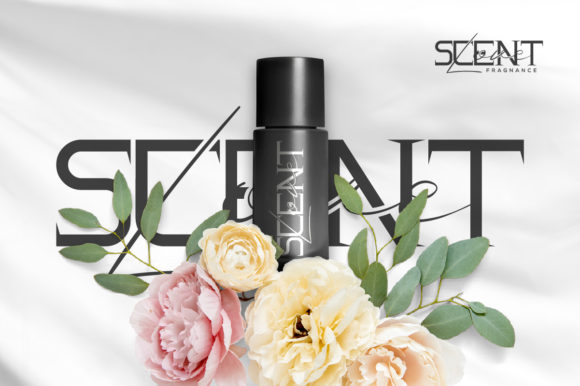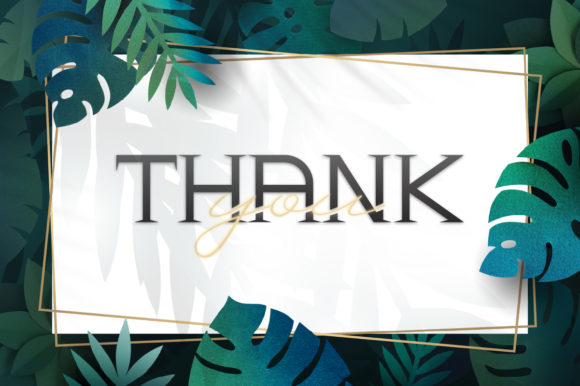
About Rustte Font
Rustte is truly an extraordinary duo font, combining both a script and serif typeface. This unique combination allows you to create stunning designs that seamlessly blend formal and informal elements. Whether you’re working on wedding invitations, thank you cards, quotes, greeting cards, logos, or business cards, Rustte is the perfect choice for adding a personalized touch.
The script font in Rustte adds elegance and a sense of fluidity to your designs. With its graceful and dynamic letterforms, it brings a touch of sophistication and charm. The script font is perfect for conveying emotions and creating a personalized feel in your designs. Whether you’re crafting wedding invitations that exude romance or creating a logo that captures your brand’s essence, the script font in Rustte will make your designs stand out.
The serif font in Rustte complements the script font beautifully, adding a touch of formality and structure to your designs. The clean lines and classic letterforms of the serif font create a sense of professionalism and refinement. It’s an excellent choice for adding a touch of elegance to your formal designs or creating a balanced composition when paired with the script font.
The versatility of Rustte allows it to adapt to a wide range of design styles and themes. Whether you’re aiming for a modern, minimalist look or a vintage-inspired aesthetic, Rustte can effortlessly accommodate your vision. Its unique duo font composition gives you the freedom to mix and match the script and serif styles to create visually captivating and harmonious designs.
Rustte’s ability to strike a balance between formal and informal designs makes it a versatile choice for various projects. It can add a touch of sophistication to your wedding invitations or elevate the elegance of your business cards. The personalized touch of the script font brings warmth to your greeting cards and quotes, while the structured serif font enhances the professionalism of your logos and branding materials.
In summary, Rustte is an incredibly unique duo font that combines a script and serif typeface. It brings stunning elegance to both formal and informal designs, making it perfect for wedding invitations, thank you cards, quotes, greeting cards, logos, business cards, and more. Let Rustte add a personalized touch to your designs and create a lasting impression with its dynamic and refined letterforms.